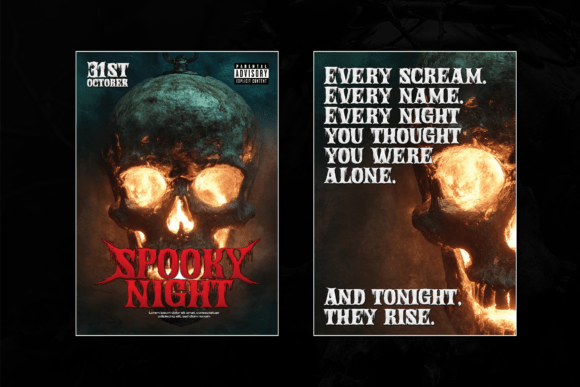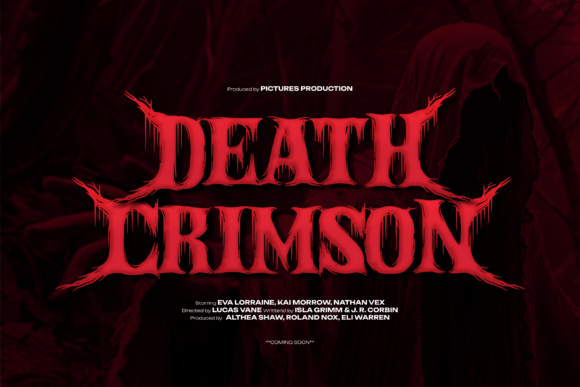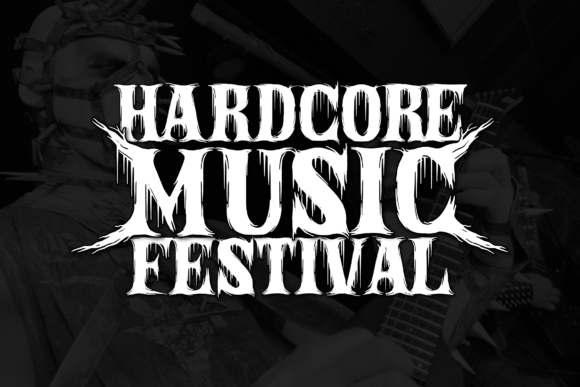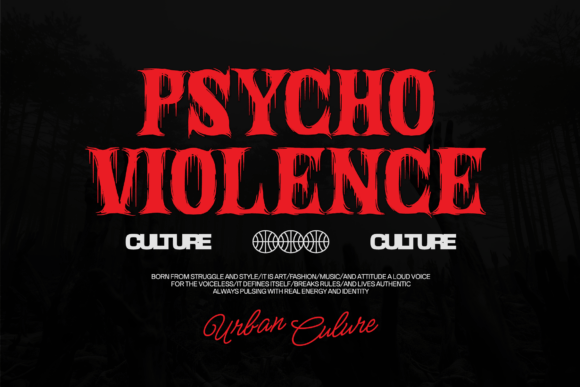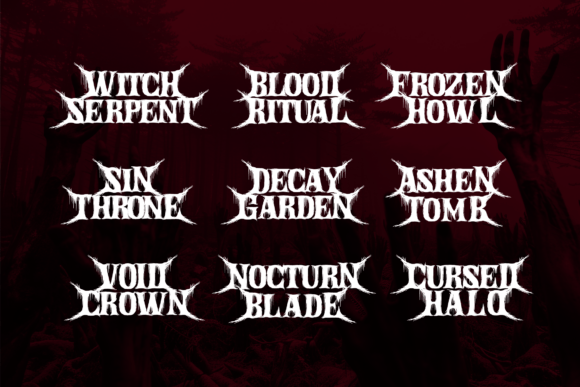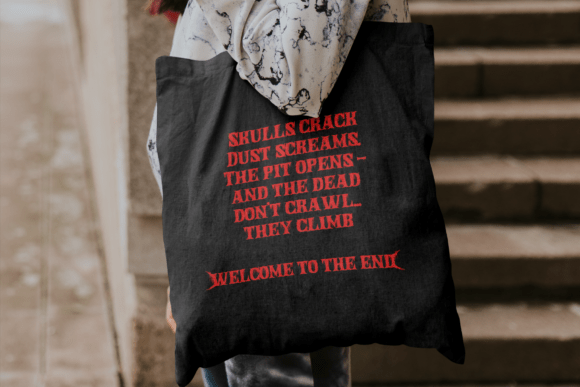
Introduction to Drip Thorny Font
Drip Thorny is a striking black metal blackletter display font that fuses brutal intensity with haunting visual style.
Featuring bold letterforms that bleed with organic drips and thorn-like extensions, it captures the raw aggression and macabre beauty of extreme metal aesthetics With 280 glyphs, multilingual support, and alternate characters, this typeface delivers both stylistic depth and functional versatility.
Key Features of Drip Thorny Font